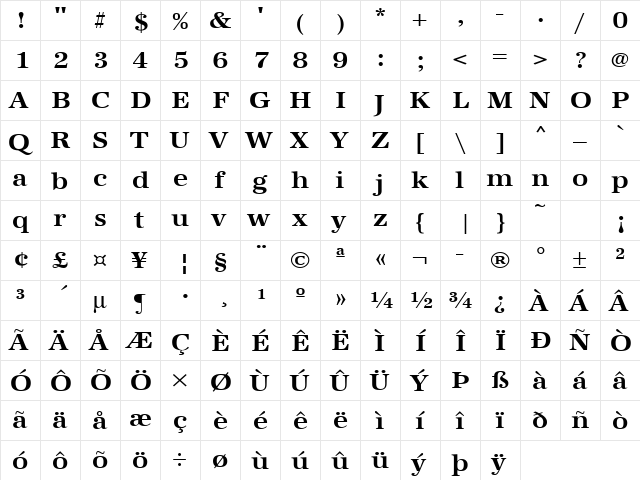
URWAntiquaTExtWid Bold
Design Context for URWAntiquaTExtWid Typeface
URWAntiquaTExtWid is a composed and adaptable typeface that performs quietly and consistently across a wide range of design contexts. Its bold stroke weight gives it real presence on the page.